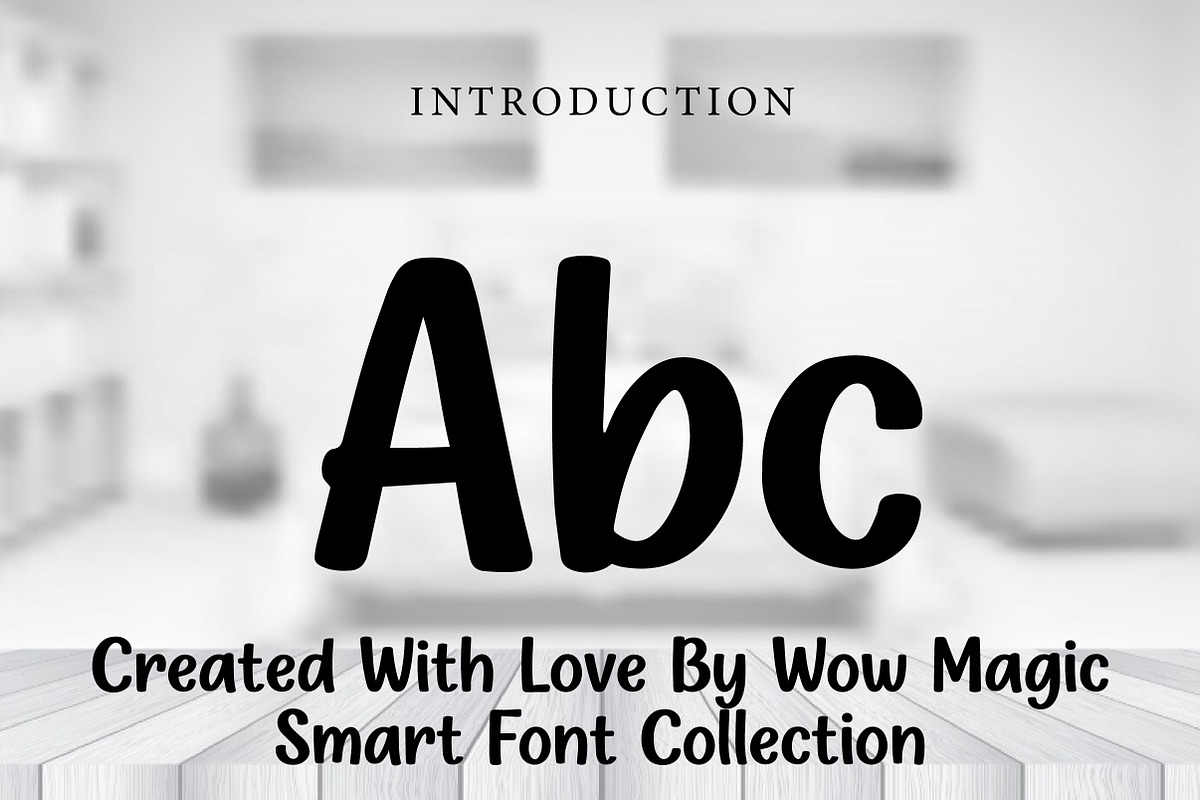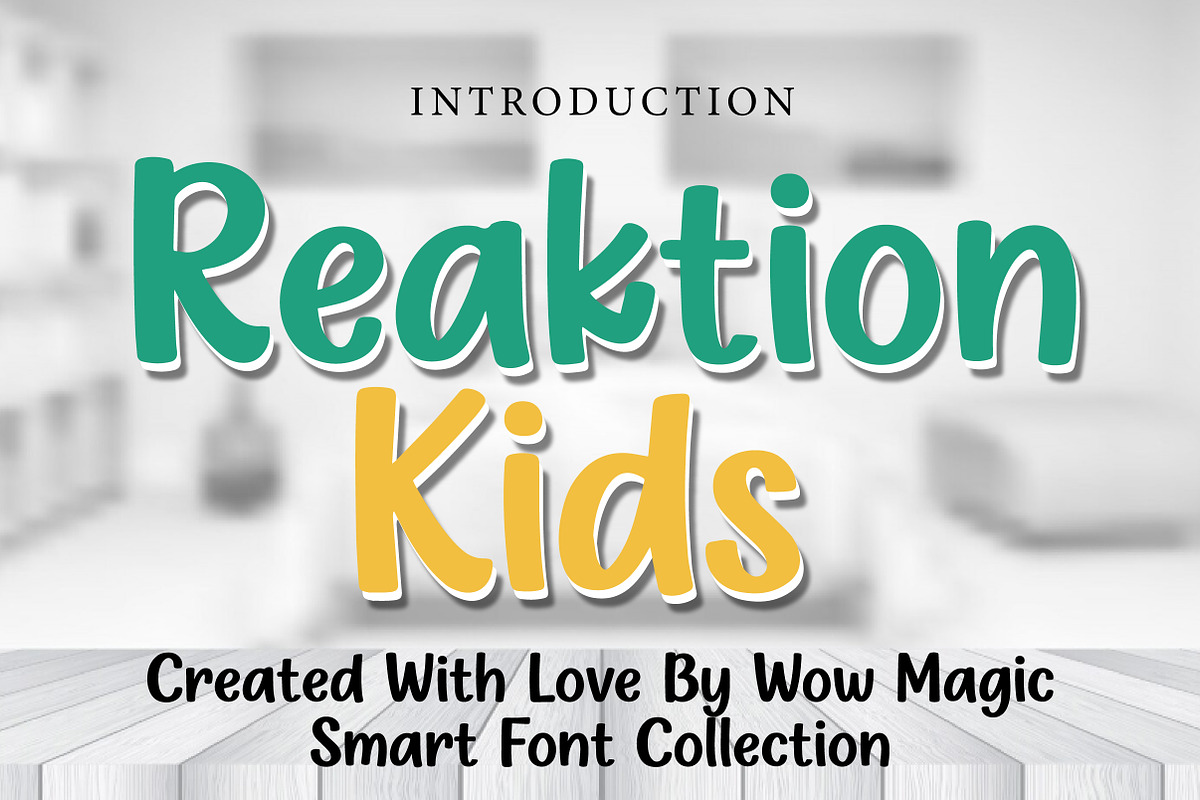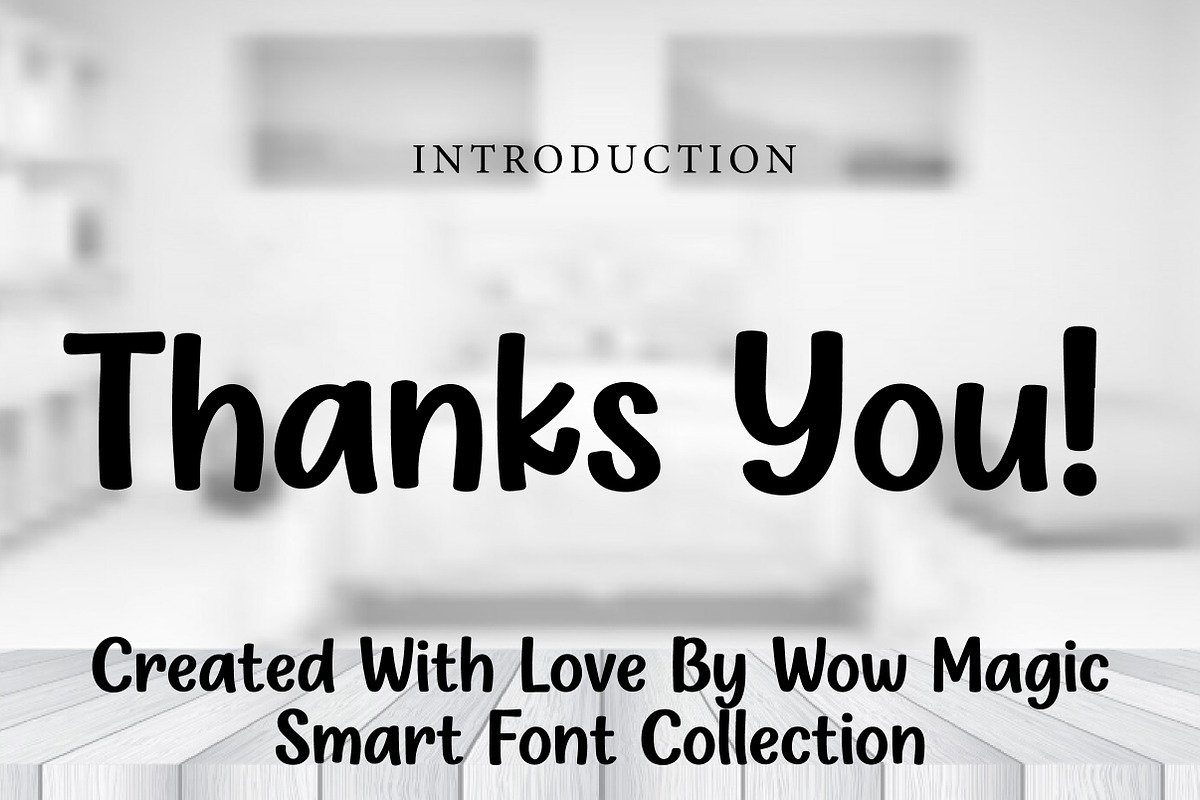
Reaktion Kids
Reaktion Kids is a fun and playful handwritten display font designed especially for children’s projects and cheerful creative designs. With its smooth rounded strokes, friendly letterforms, and natural hand-drawn feel, this typeface brings a joyful and energetic personality to every word.
The font’s casual style and soft curves make it highly readable while keeping a cute and lively character. Reaktion Kids is perfect for kids branding, educational materials, posters, packaging, storybooks, social media graphics, and playful headline designs. It adds warmth, creativity, and a sense of fun to both digital and print projects.
Reaktion Kids is ideal for designers who want a font that feels friendly, expressive, and full of life. Whether you're designing for children or creating lighthearted visuals, this font delivers a happy and engaging typographic style.